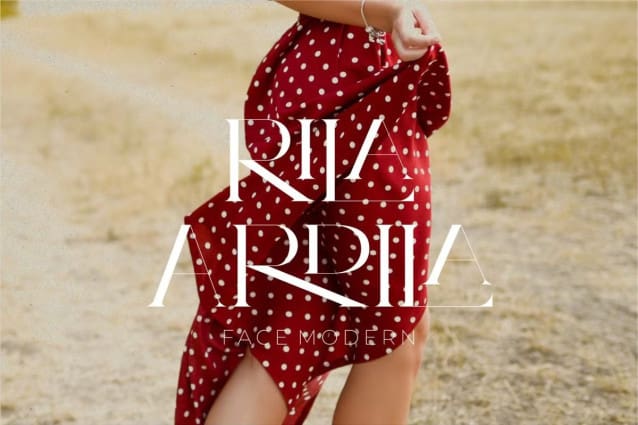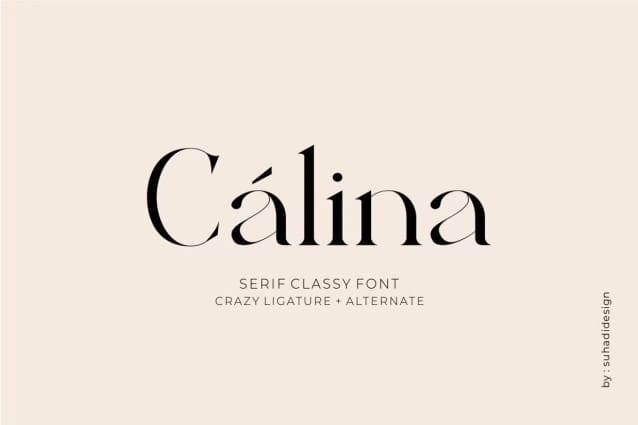
Calina Serif Font
Calina Serif font is a serif font with a very beautiful minimalist appearance, lots of ligatures + alternates. comes with a classy modern style to become a market favorite. We keep this font looking elegant, classy, ​​easy to read, stylish, attractive and easy to use. Calina Font is a great choice for modern designs, magazines, classy designs, retro designs, newspapers, books, brand names, branding and other projects. The Calina Serif font is here to improve the quality of your designs.